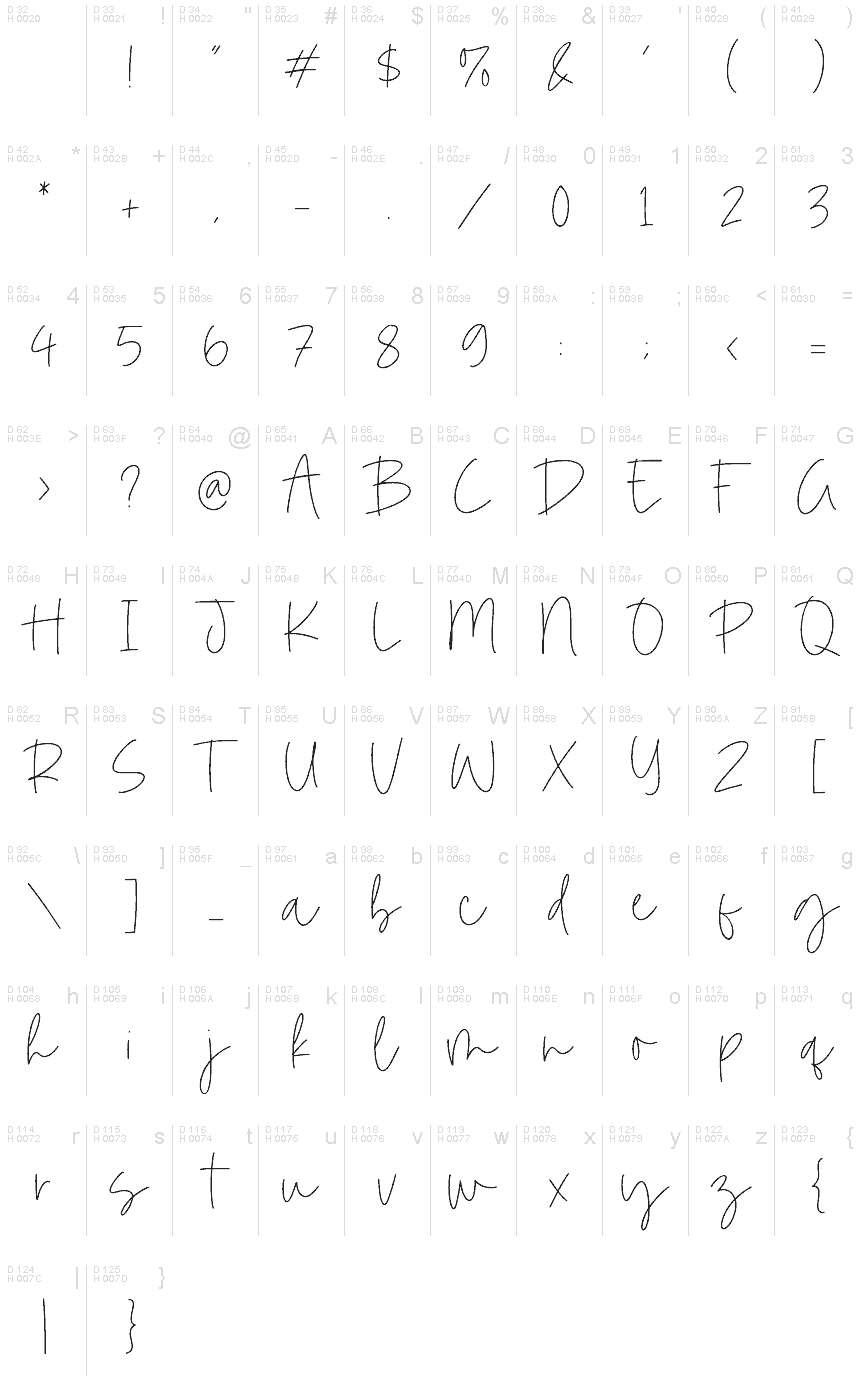
Dominate
Dominate font is a handwritten style typeface created by Timur Type. It is light, casual, and modern with a balance between expressiveness and informality. The writing style perfectly mimics an actual handwriting light on ink which provides a relaxed and personal atmosphere.
Use the free handwritten font in poster designs, prints, cards, branding designs (logos/visual identities), book covers, product packaging, merchandise/catalogues and generous invitation cards for special events. Moreover; websites for educational institutions or blogs about family affairs will make exceptional use of Dominate whose characteristics are open and friendly to visitors.